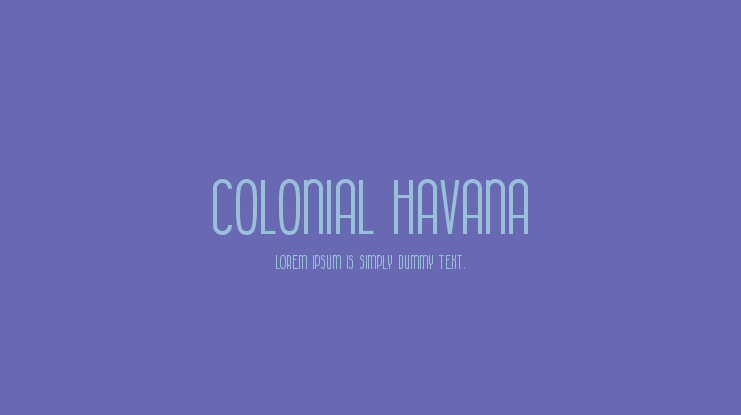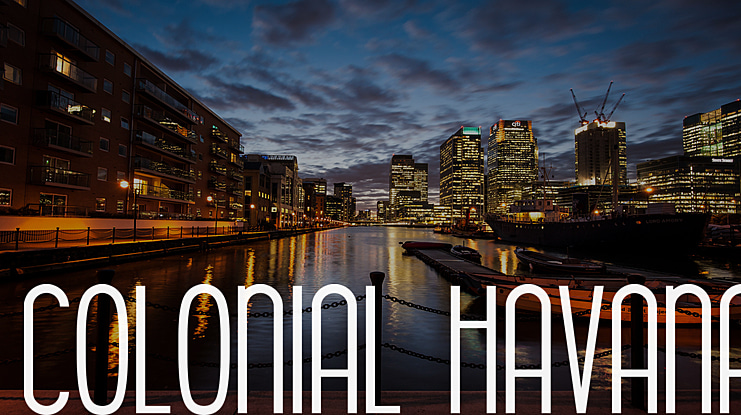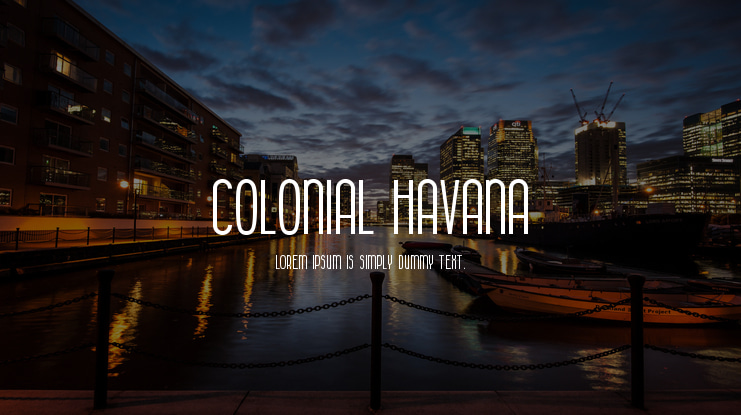
Colonial Havana Font Family
Adrián Yanes Márquez
The Colonial Havana Typeface is a beautiful sans serif font created by Adrián Yanes.
Colonial Havana draws its inspiration from Old Havanas colonial architecture. These constructions are designed and created when Cuba was a Spanish colony.
The Colonial Havana font has geometric shapes that are based on straight lines and semicircles. The letter-form is anything but boring as some of the letters have curved shapes and the height of the crossbars alternate, which gives the font a smooth rhythm and adds its own personal character.